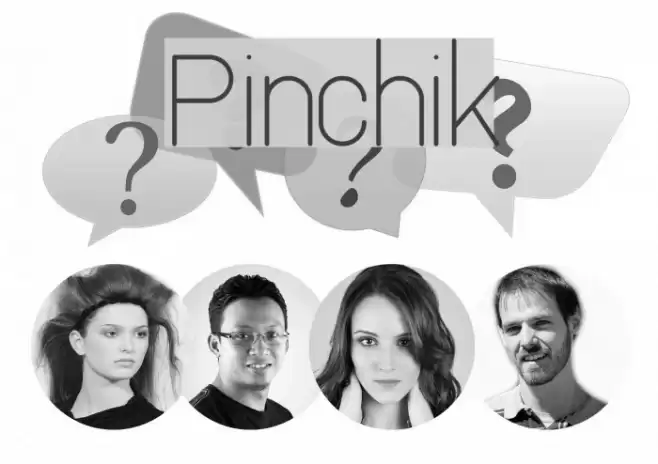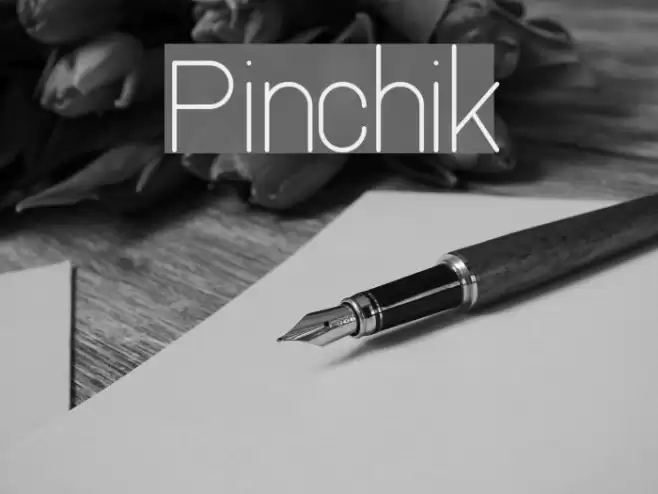
Pinchik Font
Pinchik Description
This font features a modern, geometric sans-serif style with clean, rounded edges and a minimalist aesthetic. The characters are evenly spaced, providing a balanced and harmonious appearance. The uppercase and lowercase letters maintain a consistent height, contributing to its uniformity. The numerals are clear and easy to read, matching the overall sleek design. This font's simplicity and elegance make it versatile for various design applications. The special characters are designed to blend seamlessly with the alphanumeric characters, ensuring a cohesive look across all text elements.
A modern, geometric sans-serif font with rounded edges and a minimalist design from Uncategorized fonts.
- Proposed Projects: Ideal for branding, web design, advertising, and editorial projects where a clean and modern look is desired.